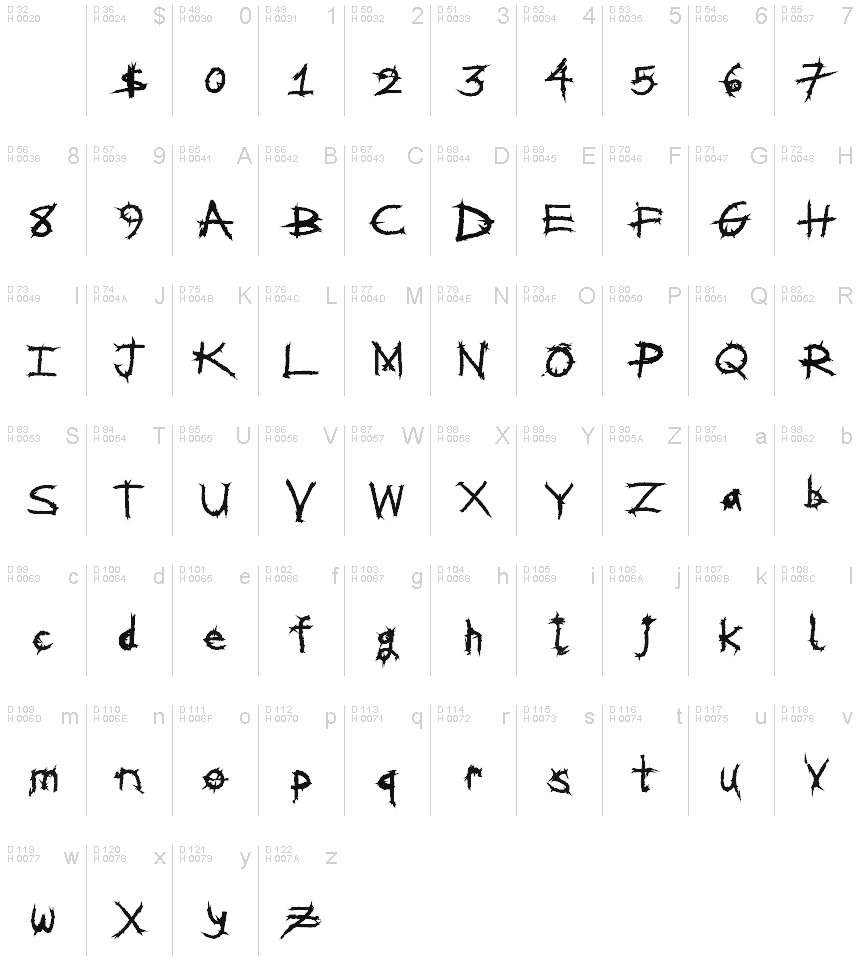
MetalShred
Metal Shred, a bold and unapologetic display font crafted by Xerographer Fonts - Max Infeld, exudes a raw, gritty aesthetic. This typeface commands attention with its jagged, razor-sharp letterforms that evoke a sense of raw energy and unbridled power. The uncompromising design, characterized by its aggressive, distressed appearance, effortlessly conveys a rebellious, trash-inspired style.
The Metal Shred font shines brightest in headings, titling, and other prominent design elements where its striking visual impact can take center stage. Its versatility allows it to seamlessly integrate into a variety of design contexts, from heavy metal album covers and punk rock posters to edgy product packaging and bold typographic compositions.